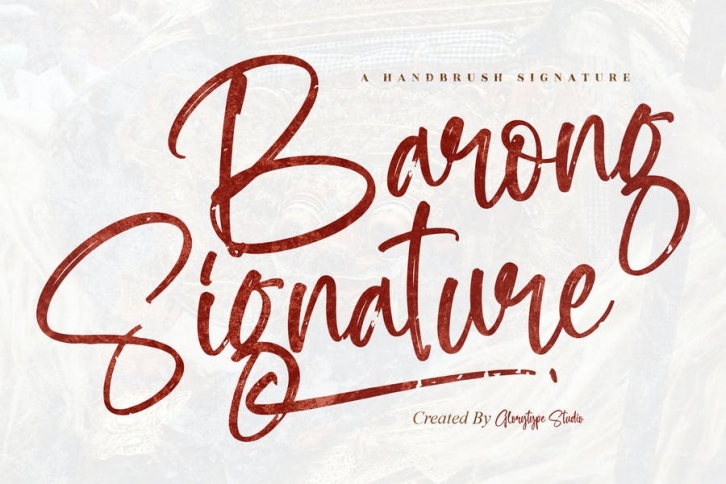
Barong Signature Handbrush Font Download
Hi ladies & gentlemen, this is one of our fonts suitable to complement your digital and printed creative products. This font is perfect for posters, social media posts, branding, personal projects, etc.